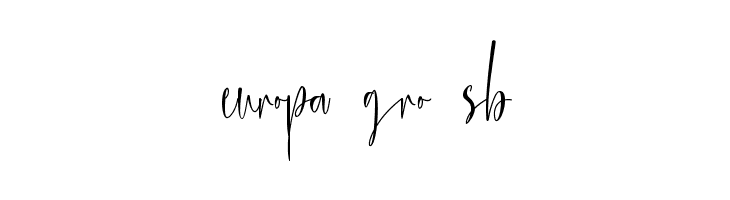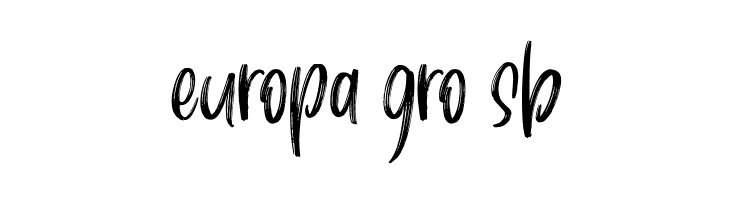
Sunny Spells Basic Regular Font
Font by Niskala Huruf
A playful, rounded font with a bold and friendly appearance.
Sunny Spells Regular Font
Font by Niskala Huruf
A playful, bold font with rounded edges and a bubbly appearance.
MB Gothic Spell Font
Font by Irina ModBlackmoon
A gothic, thorny font with intricate, sharp embellishments and dramatic flourishes.
Spellstone Font
A playful and whimsical font with rounded, slightly irregular letterforms.
Spelling Regular Font
Font by Vladimir Nikolic
A bold, geometric font with a 3D effect and angular design.
LMS Spooky Speller Font
A spooky, ghost-themed decorative font perfect for Halloween designs.
World-of-spell Font
Font by Pinisiart
A bold, playful font with a hand-drawn, angular style.
Count and Spell Font
InermediaSTUDIO
A bold, rounded, and playful font with a whimsical style.
Spooky Spell Font
Font by Andi Moz
A whimsical script font with flowing, interconnected letters and a playful, elegant style.
Learn To Spell Font
A playful, bold handwritten font with a whimsical and dynamic style.
Spell Love Demo Font
A whimsical script font with decorative hearts and swirls, ideal for romantic designs.
LMS Spelling Bee Font
London's Letters - www.londonsletters.com/
A playful dotted cursive font with bee illustrations, ideal for children's projects.
Correct Spelling Font
Font by Etik Fatimah
A condensed, rounded sans-serif font with tall, clean letterforms.
Hermetic Spellbook Font
Iconian Fonts - Daniel Zadorozny - www.iconian.com
A decorative font of mystical symbols resembling ancient runes.
LMS Learn To Spell Font
London's Letters - www.londonsletters.com/
A playful, decorative font with cartoon illustrations within each letter.